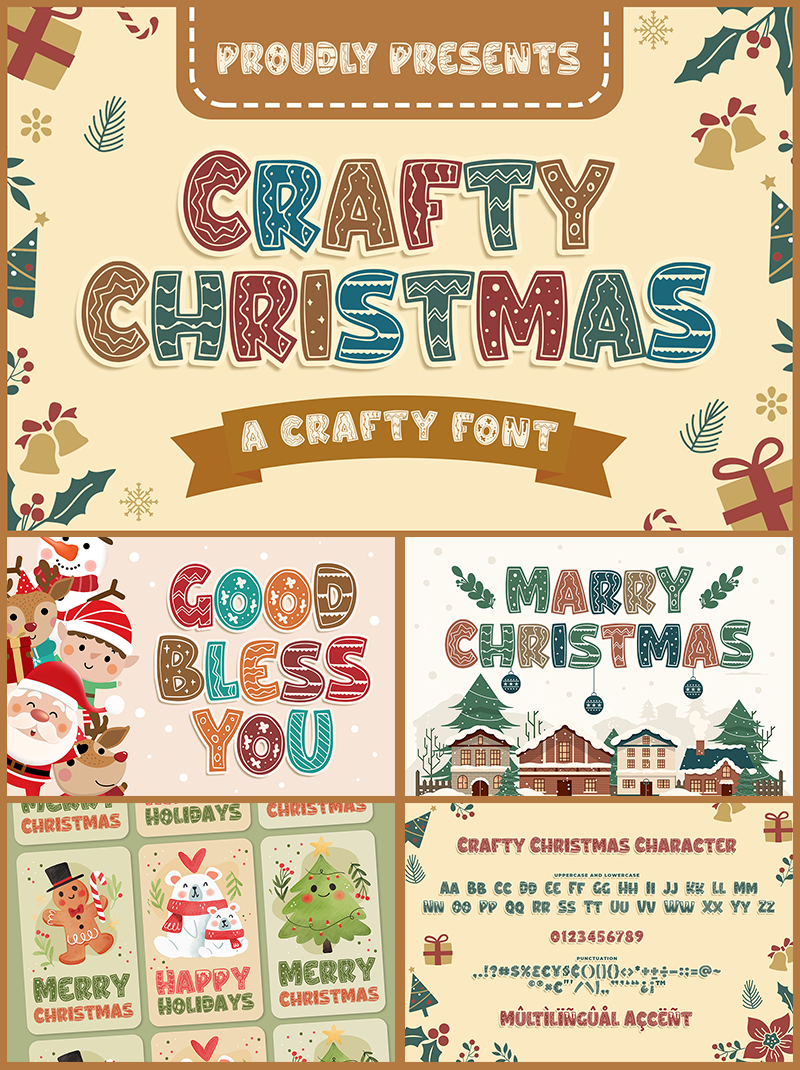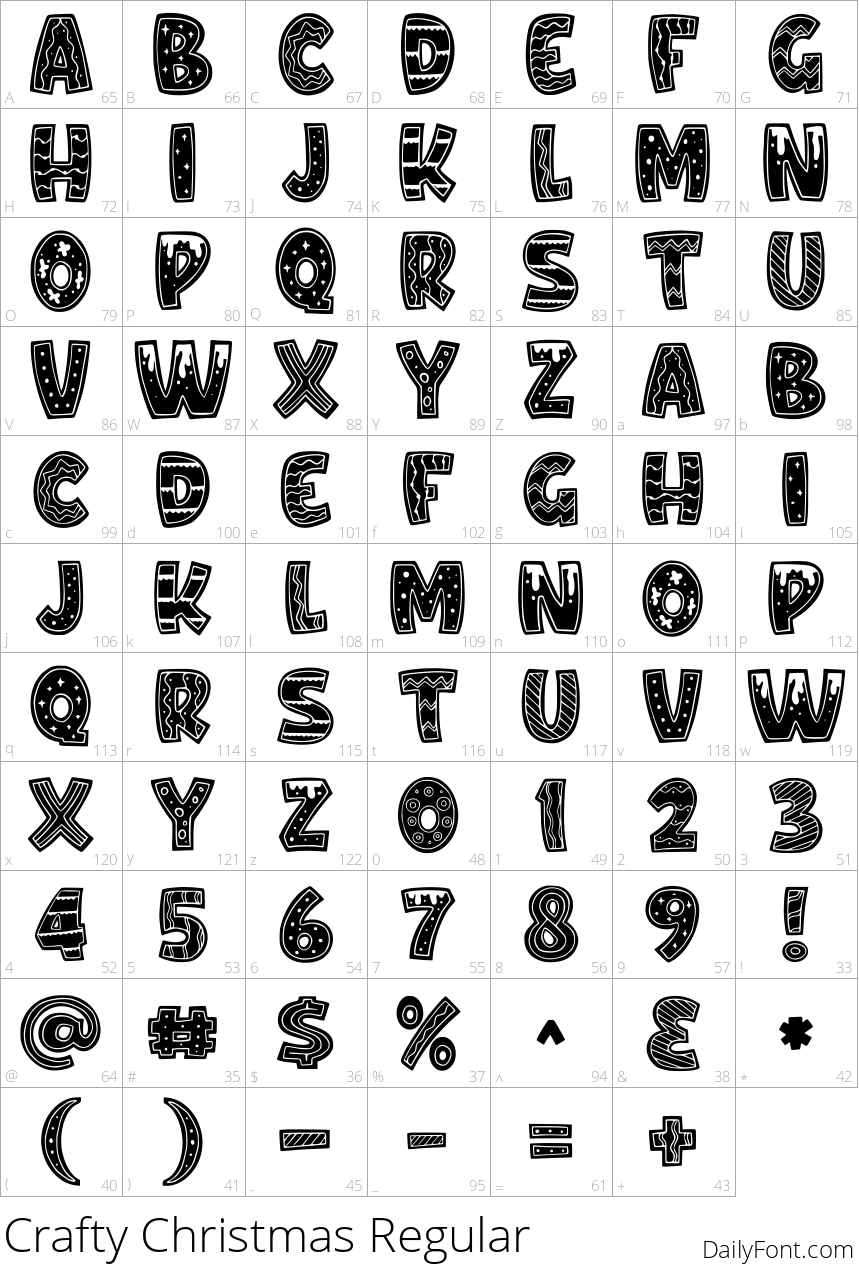
Crafty Christmas
Crafty Christmas is a fun, festive and highly detailed decorative font designed to bring holiday whimsy to any project. Whether you're crafting handmade cards, building vibrant digital designs, delivering engaging presentations, or leveling up seasonal branding, this font offers rich character and a playful mood. Its bold letterforms, ornate accents, and lively swashes transform ordinary text into eye-catching headlines and charming body copy for Christmas, winter events, and all seasonal occasions.
Use Crafty Christmas to spark attention in headlines, invitations, product packaging, and social graphics. The decorative style pairs beautifully with clean sans-serif bodies for contrast, while its dense ornamentation adds charm to greeting cards, banners, and tutorials. This font is designed for legible performance at multiple sizes and across print and digital media, helping your holiday content resonate and perform better in search results with keywords like decorative font and Christmas font.